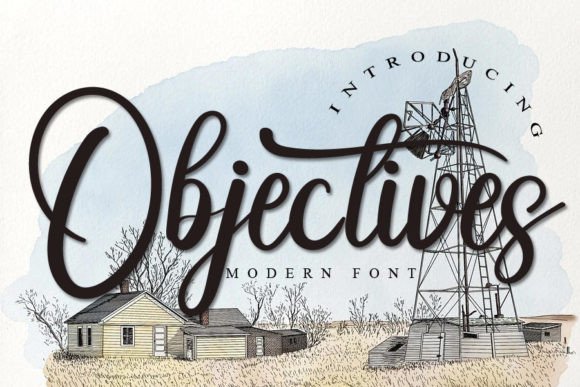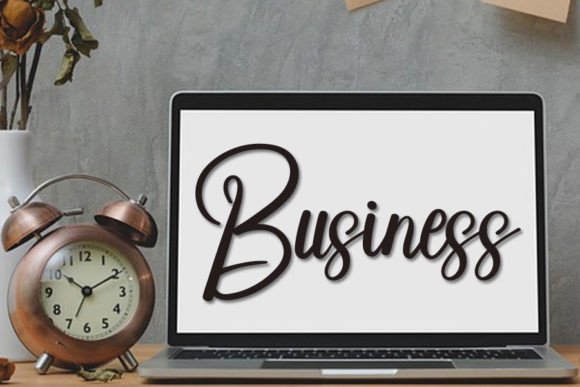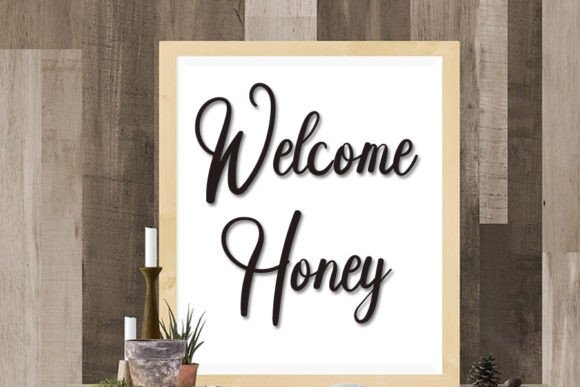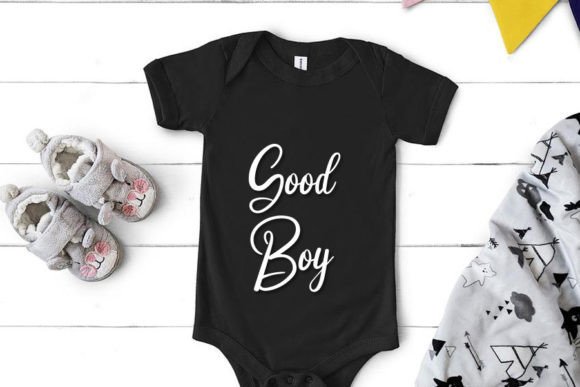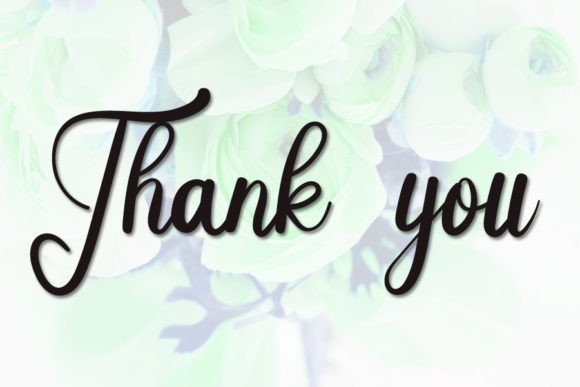
Objectives Font
About Objectives Font
**Objectives: A Modern and Stylish Handwritten Script Font**
Meet Objectives, a modern and stylish handwritten script font that has been masterfully designed to become your go-to favorite for a wide range of creative ideas. This font has the potential to elevate and enhance each of your projects to the highest level.
The charm of Objectives lies in its modern and stylish script. Each letter is crafted with precision and care to create a font that exudes contemporary elegance and flair. Whether you’re working on branding, marketing materials, or any other creative endeavor, Objectives adapts seamlessly to your vision.
Objectives is versatile and can be used in various design contexts. It’s suitable for crafting sleek and trendy branding materials that resonate with a modern audience. Its readability and stylish aesthetics ensure that your message is conveyed effectively while maintaining a sense of sophistication.
In summary, Objectives is more than just a font; it’s a source of modernity and style that enhances your design projects. Its modern and stylish script letters make it a valuable choice for infusing contemporary elegance and flair into your work. With Objectives, your creative ideas will shine at their highest level. Make Objectives your font of choice, and let your creativity flourish with its modern and stylish charm.